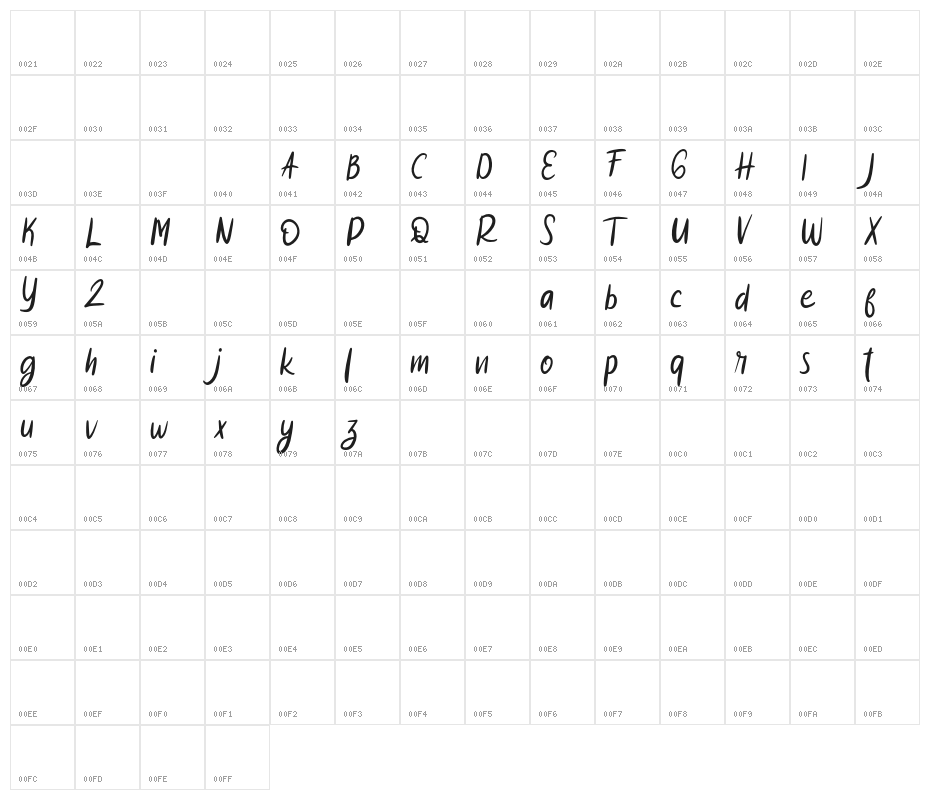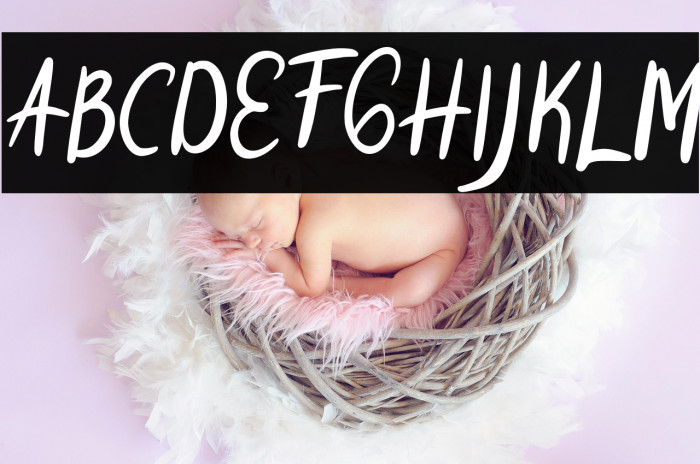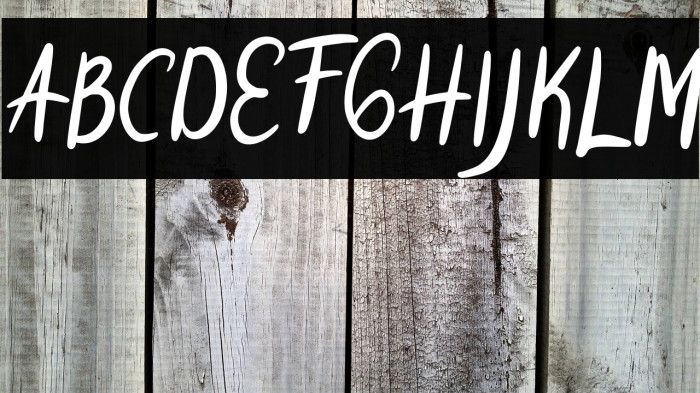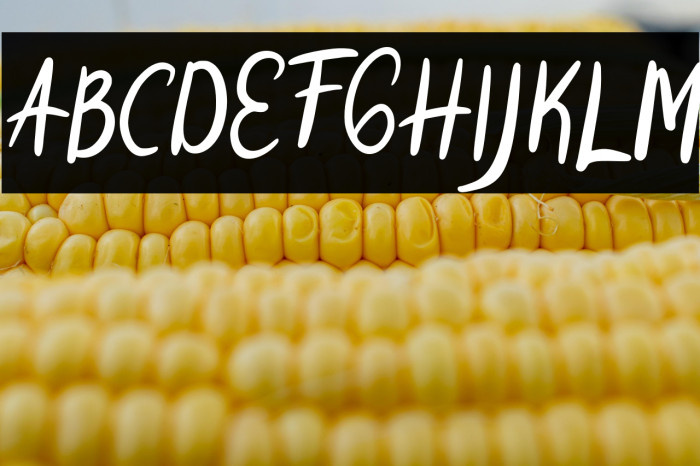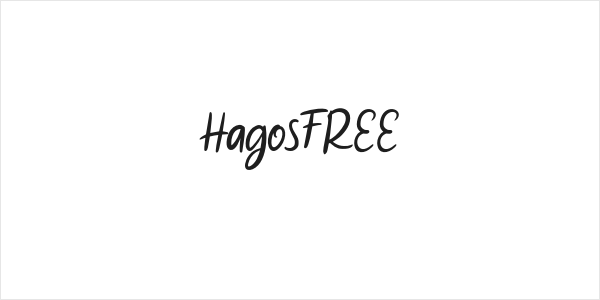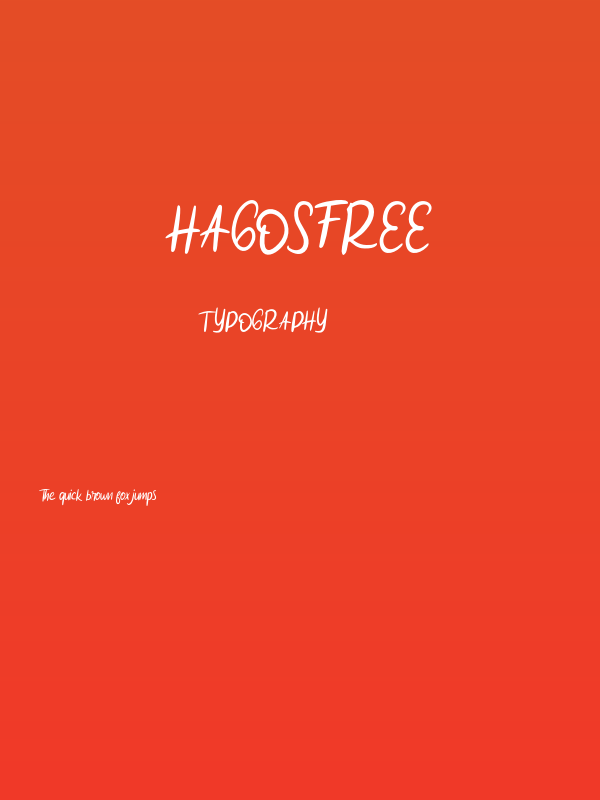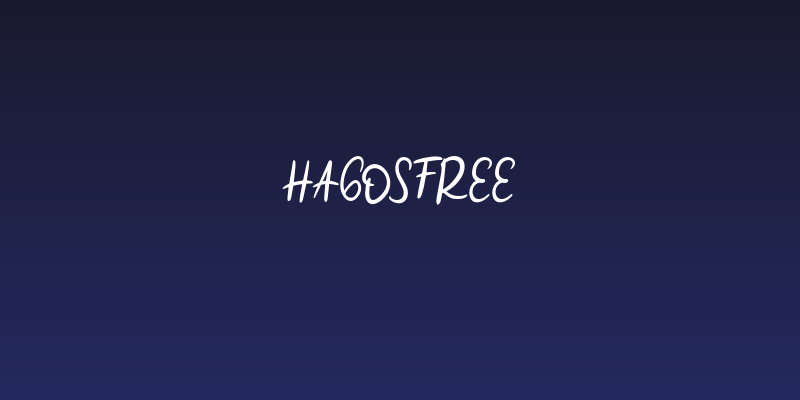
HagosFREE Font
HagosFREE Description
This font features a playful and energetic script style, characterized by its smooth, flowing lines and slightly irregular strokes. The uppercase letters are bold and dynamic, with a slight slant that adds to the casual, handwritten feel. The lowercase letters maintain a consistent style, with some characters like 'g' and 'y' having distinctive loops that enhance the font's charm. The numerals are clear and legible, matching the overall aesthetic. This font's unique style makes it suitable for creative and informal projects.
| Use Case | Logos, Headlines, Invitations |
| Proposed Projects | Ideal for greeting cards, invitations, branding, and social media graphics. |